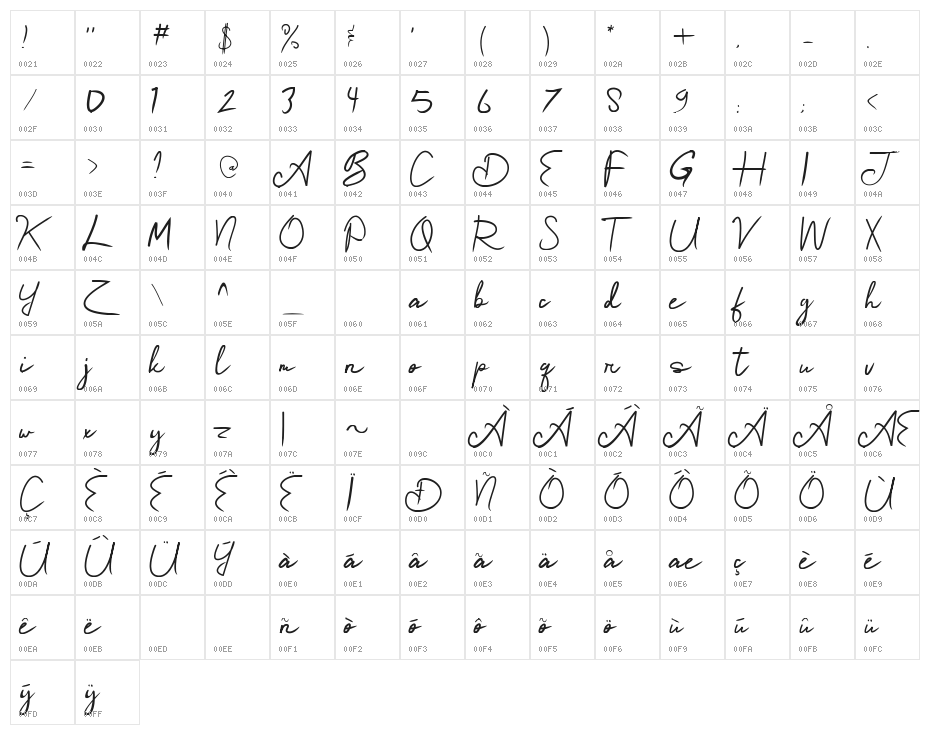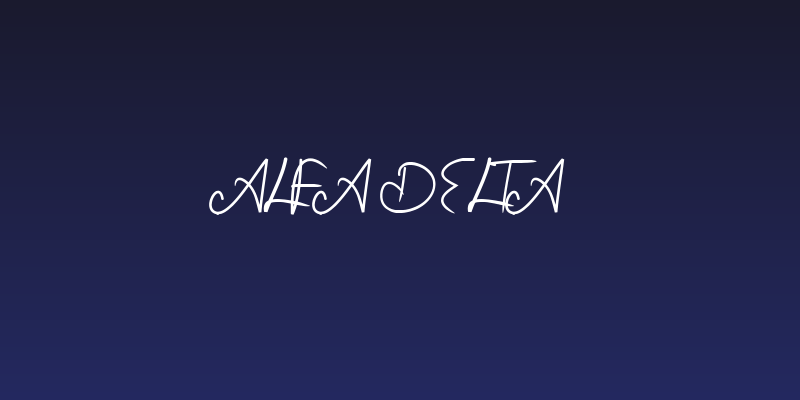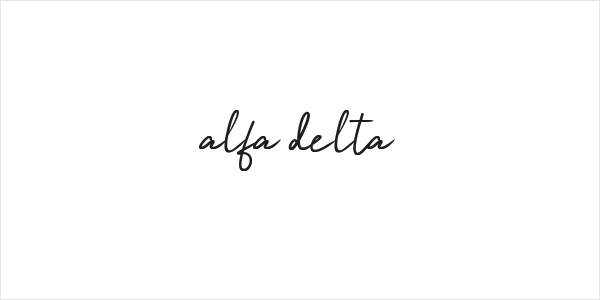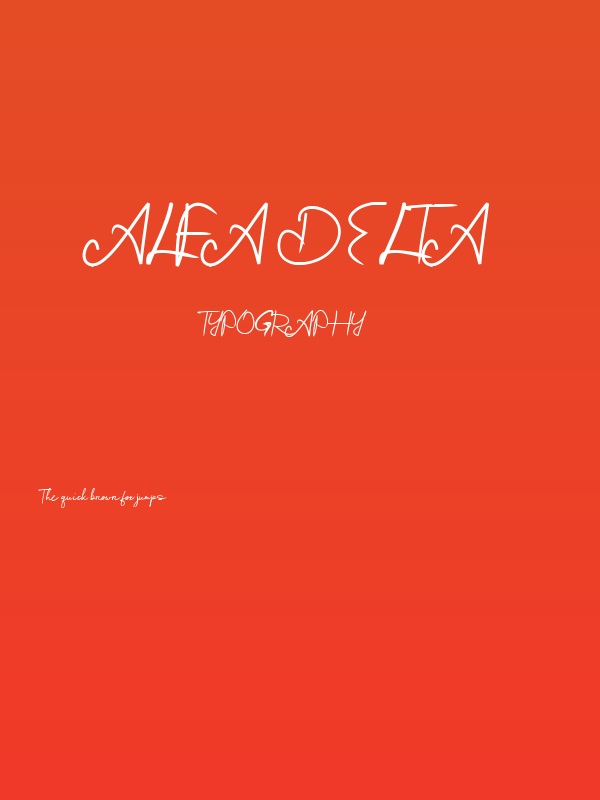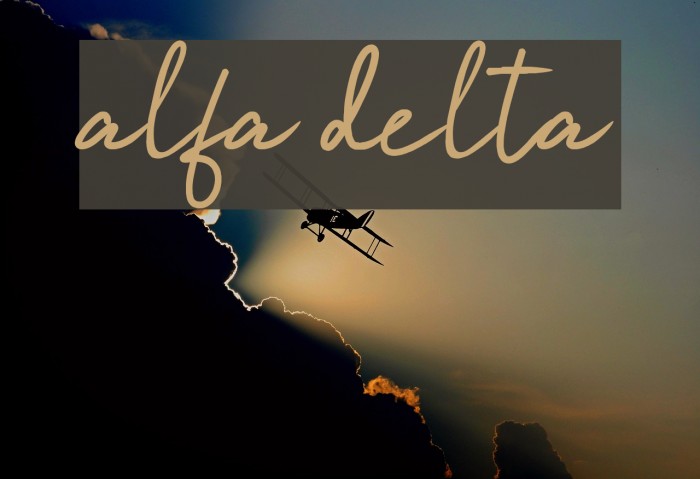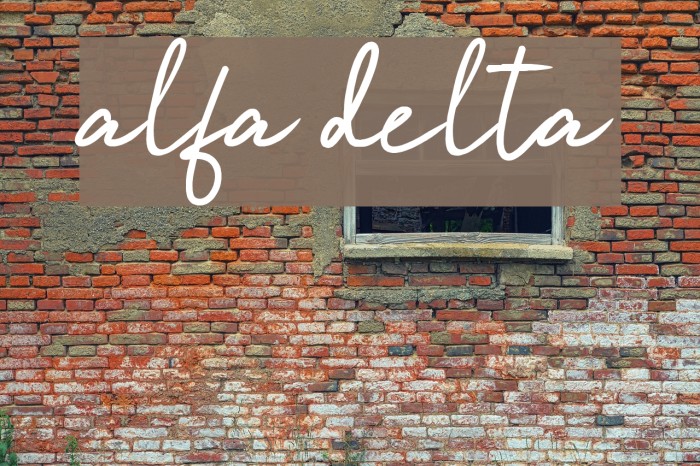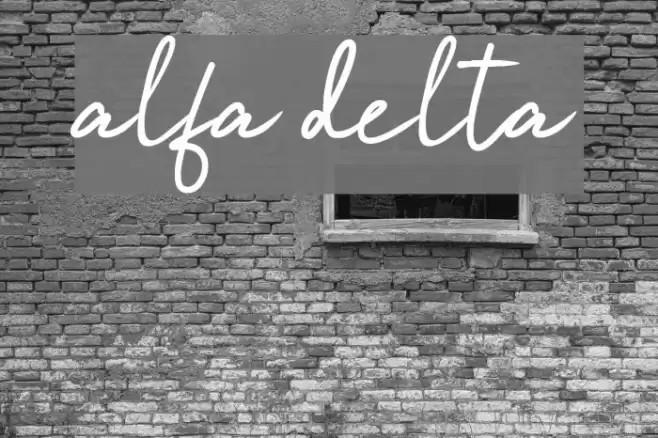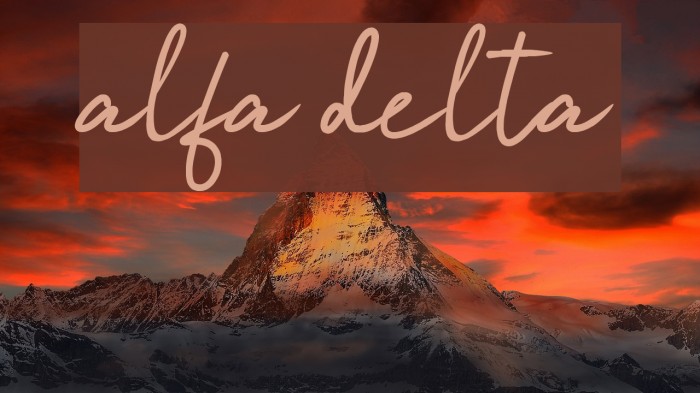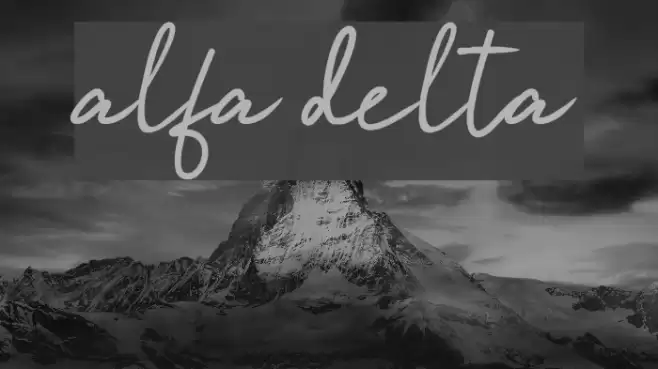
alfa delta Font
| Kategorien | Script |
| Gesamtstil | Elegant and Creative |
| Anwendungsfall | Logos, Invitations, Decorative Text |
| Vorgeschlagene Projekte | Ideal for wedding invitations, greeting cards, branding projects, and elegant packaging designs. |